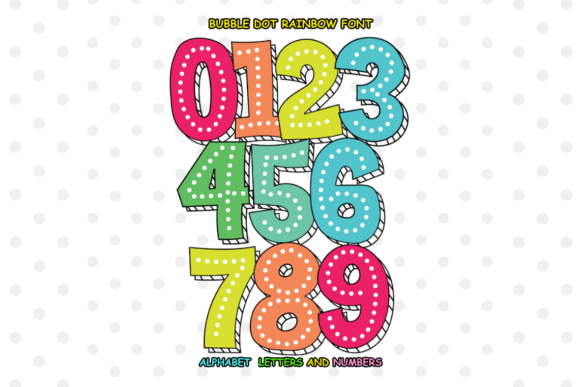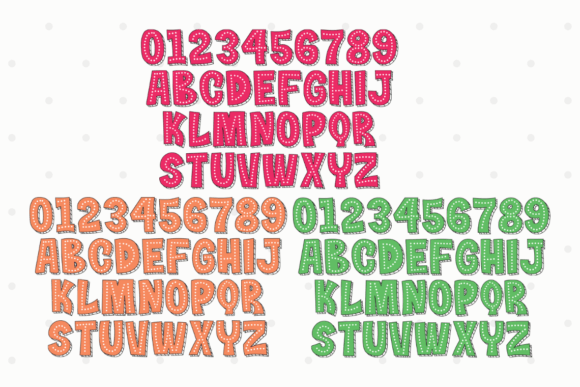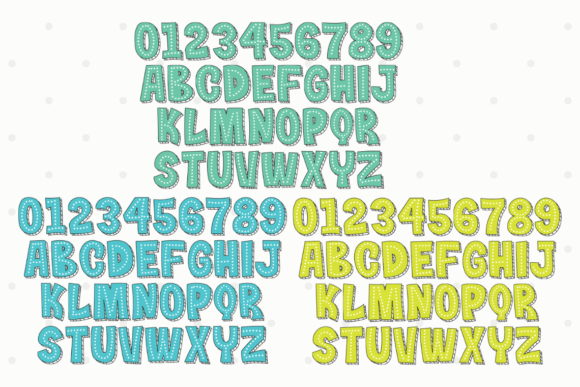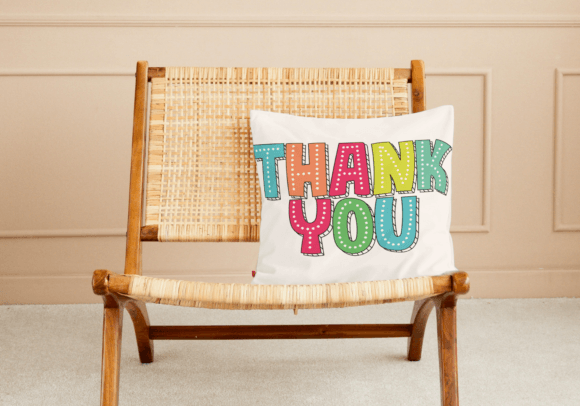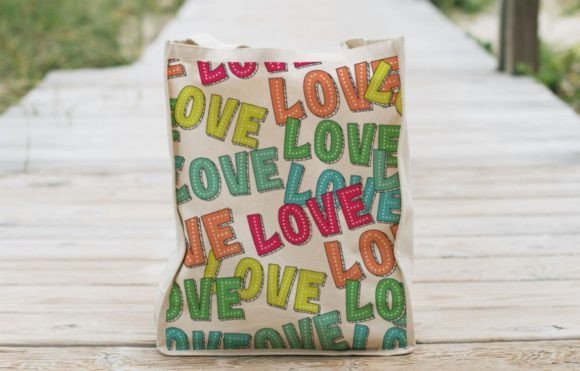
Get Ready to Pop with Color!
Have you ever stared at a blank design canvas, searching for that perfect spark to bring your project to life? It’s a feeling many creatives know all too well. Suddenly, a burst of colorful inspiration hits you – and your imagination runs wild! For designers seeking a playful twist to add some whimsy to their work, the Bubble Dot Rainbow Font is here to save the day.
This enchanting font is inspired by the carefree joy of bubbles and the vibrant hues of rainbows. With its bold and dynamic appearance, the Bubble Dot Rainbow Font is the perfect addition to any design project. Whether you’re creating invitations, posters, or social media graphics, this color font will bring a sense of fun and charm to your work. Get ready to unleash your creativity and make your designs pop with the Bubble Dot Rainbow Font!
Bubble Dot Rainbow Font Key Features
- Unique Characteristic: The font features a unique blend of bubble and dot elements, creating a playful and whimsical aesthetic.
- Color Variations: The font includes multiple color variations, including a rainbow effect, allowing designers to customize the look and feel of their designs.
Bubble Dot Rainbow Font Review
At first glance, I thought the Bubble Dot Rainbow Font was going to be your typical, overly-playful font. But, I was pleasantly surprised to find that it’s actually a pretty well-designed font. ✨ The rounded shapes and colorful dots create a fun and lively atmosphere, making it perfect for projects that need a youthful vibe.
- The font is highly customizable, allowing you to change the color palette and dot size to suit your needs.
- The rounded shapes make it easy to read, even at smaller font sizes.
- The font is highly versatile and can be used for a variety of projects, from children’s books to social media graphics.
- The font may be too playful for some projects, such as corporate materials or formal documents.
- The dots can sometimes make the text look cluttered, especially at larger font sizes.
Overall, I think the Bubble Dot Rainbow Font is a solid choice for projects that need a fun and youthful vibe. While it may not be suitable for every project, it’s definitely worth considering for those that require a playful touch.
Use the Bubble Dot Rainbow Font to add a playful and whimsical touch to your designs.
Pair it with bold and bright colors to create a visually appealing contrast.
Experiment with different font sizes and styles to create a unique and eye-catching effect.
Use the Bubble Dot Rainbow Font for:
Children’s party invitations and decorations.